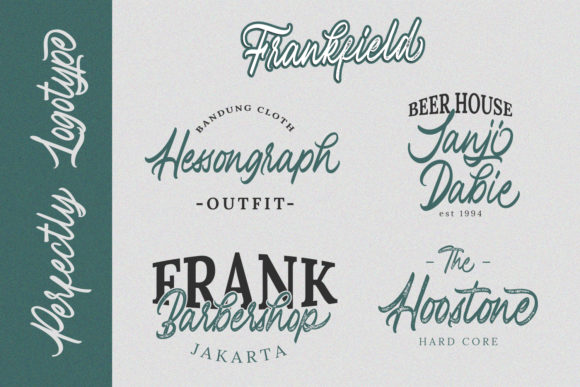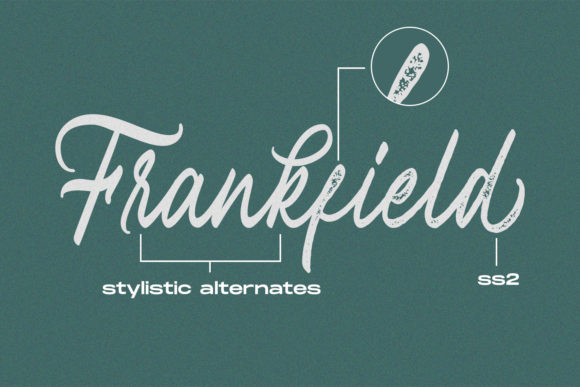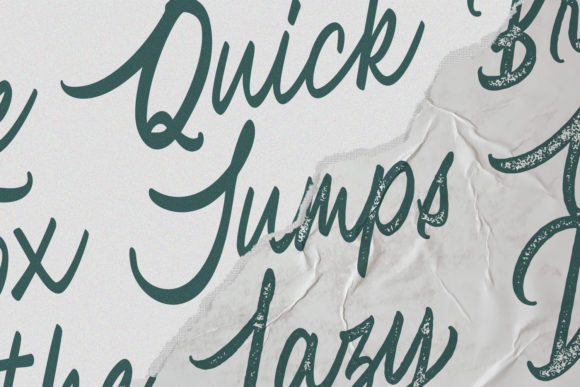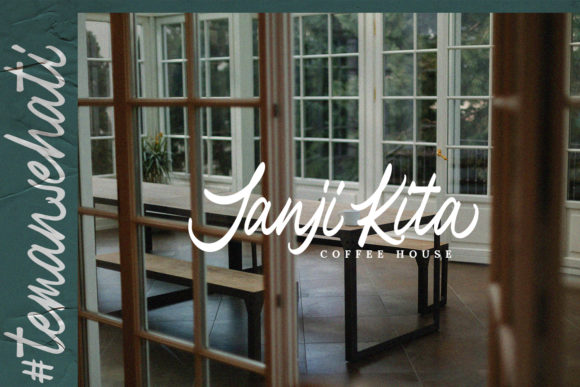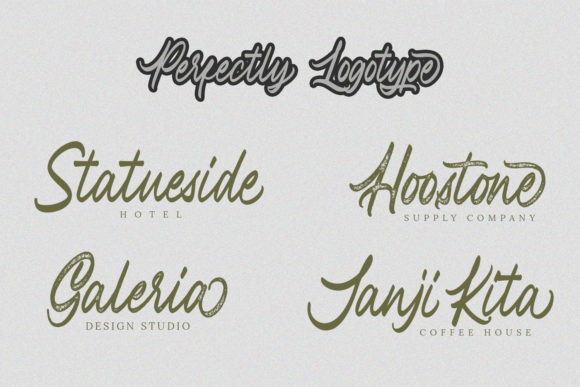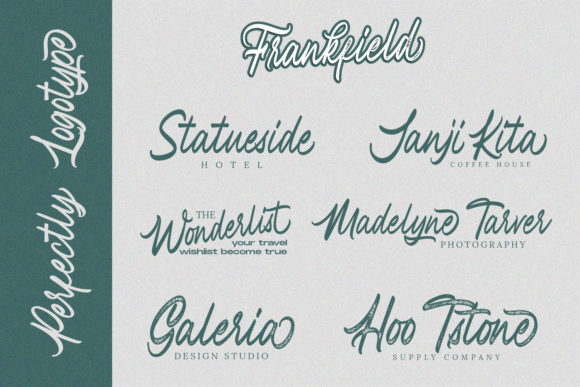
The Frankfield Font: A Versatile Script for Creative Projects
I still remember the frustration of working on a design project, hours spent searching for the perfect font, only to end up with a mediocre result. It was as if the font was fighting me, refusing to complement my design. But then, I stumbled upon Frankfield, and it was love at first sight! 😍 This beautiful script font has been a game-changer for my creative projects, and I’m excited to share its awesomeness with you.
An Honest Review of Frankfield
So, what makes Frankfield so special? Let’s dive into the good stuff and, of course, the not-so-good stuff.
What I Love About Frankfield
- ✨ Clean and Rough Texture: Frankfield’s unique blend of clean and rough texture makes it perfect for a wide range of creative projects, from branding to crafting.
- ✅ Versatile: This script font can be used for both digital and print projects, making it a great addition to any design library.
- 💫 Highly Legible: Despite its artistic feel, Frankfield remains highly legible, even at smaller font sizes.
While Frankfield is an amazing font, it’s not perfect. Here are a few things to keep in mind:
- ⚠️ Limited Use in Formal Contexts: Due to its artistic nature, Frankfield might not be the best fit for very formal or traditional projects.
- 🤔 Some Letters May Require Adjustment: Depending on the word or phrase, some letters might require manual adjustment to achieve optimal spacing and aesthetics.
The Backstory of Frankfield
Frankfield’s story began with a simple goal: to create a font that feels both clean and rough, perfect for a variety of creative projects. While the font’s actual origins are unclear, it’s easy to imagine a designer experimenting with different textures and styles to achieve that perfect balance.
| Font Name | Frankfield Font |
| Author | TempCraft |
Q: What makes Frankfield unique?
A: Frankfield’s unique blend of clean and rough texture sets it apart from other script fonts.
Q: Is Frankfield difficult to read?
A: No, Frankfield is highly legible, even at smaller font sizes, making it perfect for a wide range of design applications.